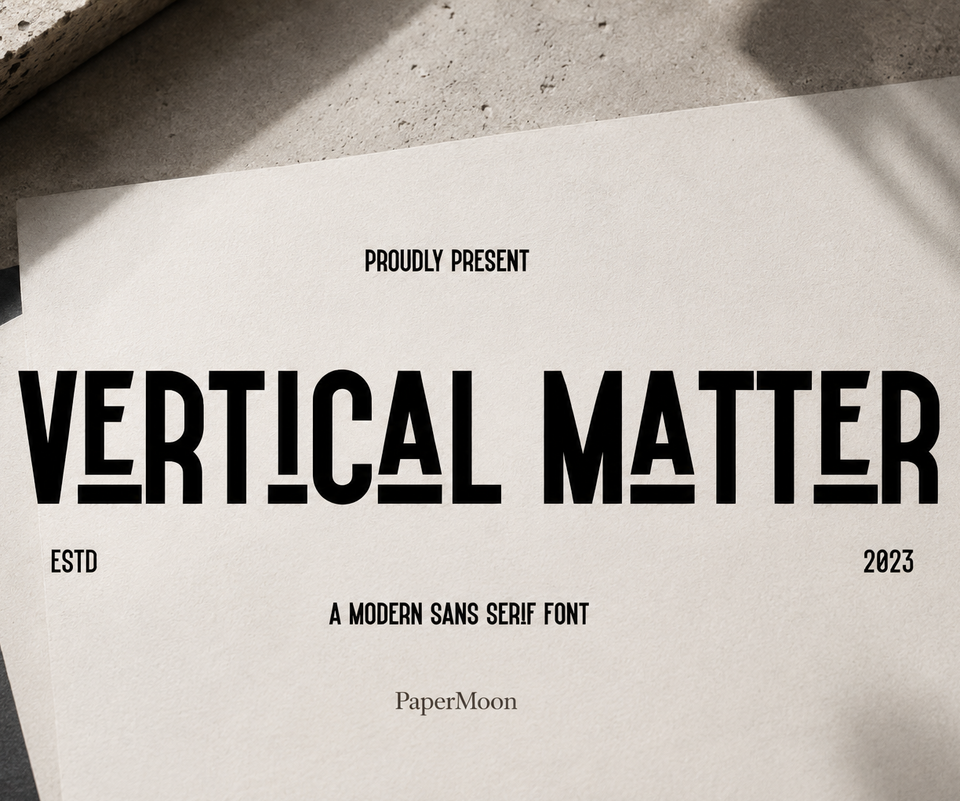
Vertical Matter — Modern Sporty Display Sans Font
Vertical Matter is a modern sporty sans serif display font with bold visual energy, clean lines, sharp corners, and an athletic sense of precision. Its compact display character gives sports branding, fitness promotions, action posters, sportswear graphics, and active lifestyle campaigns a direct, high-impact voice. It also brings a focused tech and contemporary feel to bold headlines, logos, labels, packaging, and social media artwork.
Key Features: The clean geometric construction and sharp-cornered forms are designed to stay legible and assertive at headline sizes. This is a straightforward display sans workflow without GSUB or GPOS feature tables. No alternate glyphs, ligatures, or kerning features are included or claimed. Set the font directly in compatible design software for controlled poster layouts, team graphics, campaign headlines, and brand marks.
Applications: Use this athletic font for gym and fitness promotions, sports team identity, event posters, race graphics, action posters, apparel and sportswear, sneaker campaigns, product labels, packaging, and bold advertising headlines. Its modern sporty personality also suits technology branding, active lifestyle content, YouTube thumbnails, social media artwork, editorial display text, and energetic logo concepts. Pair large words with strong contrast, generous spacing, or cropped compositions when building a dynamic sports branding system.